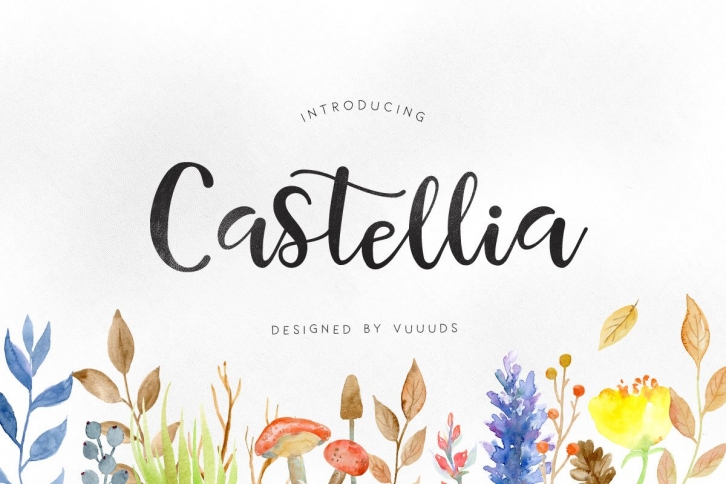
Castellia is modern script font, every single letters have been carefully crafted to make your text looks beautiful. With modern script style this font will perfect for many different project ex: quotes, blog header, poster, wedding, branding, logo, fashion, apparel, letter, invitation, stationery, etc.
Castellia including alternate glyph.